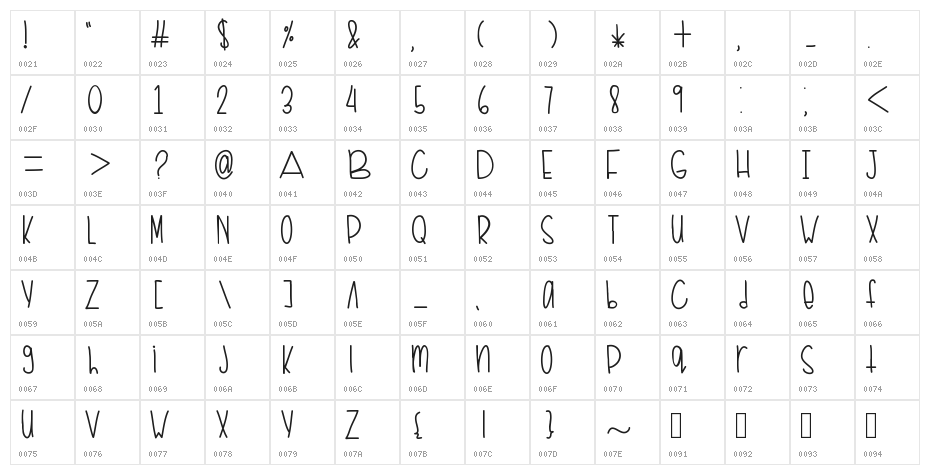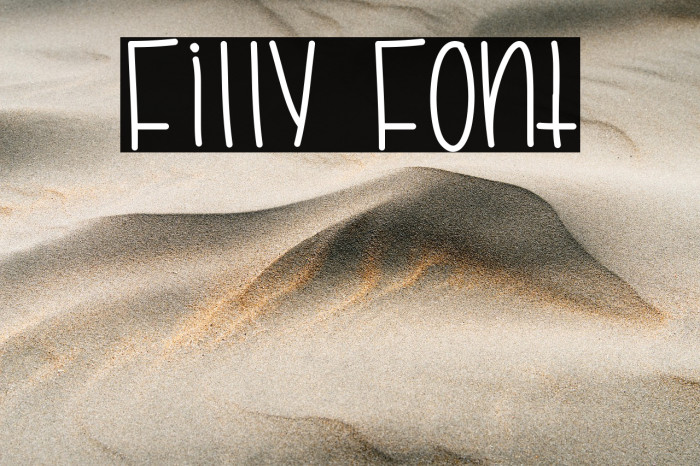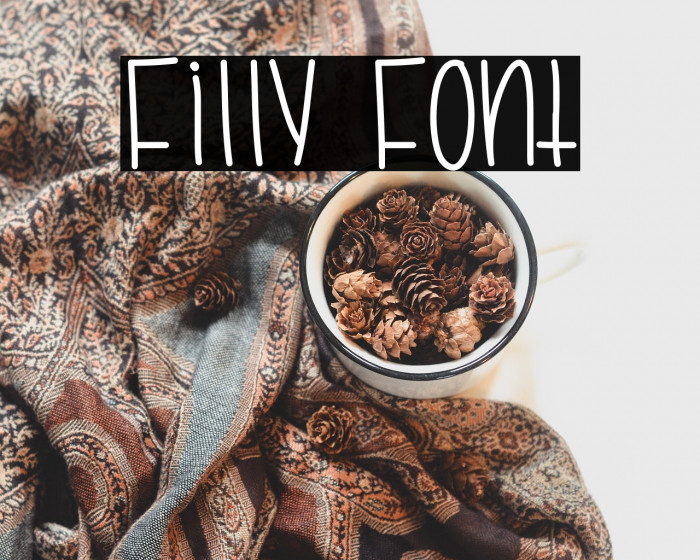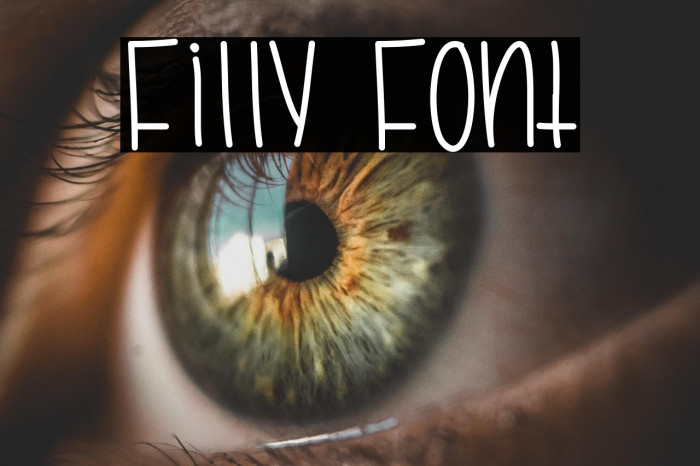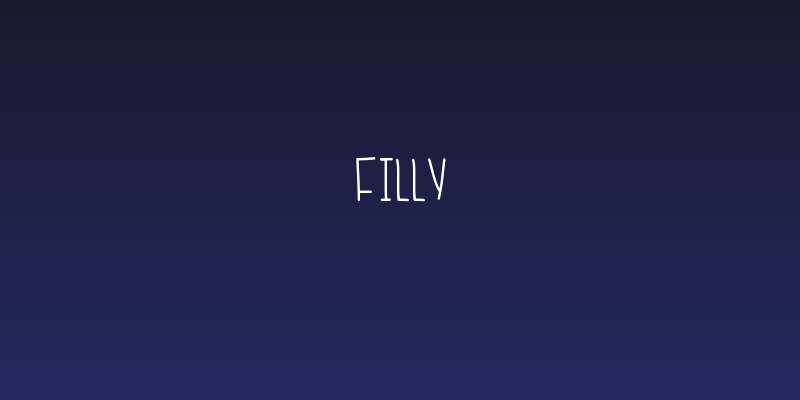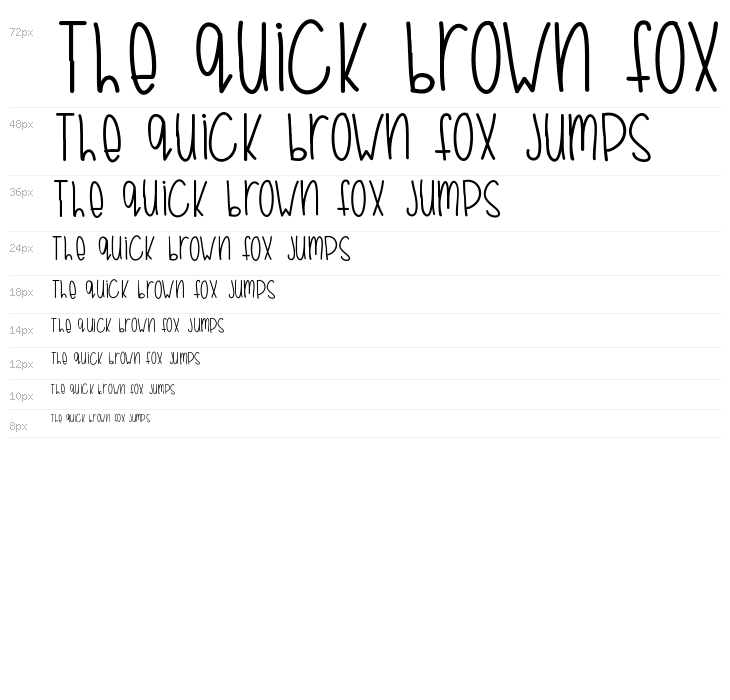
Filly Font
Filly Description
This font features a playful and casual handwritten style, characterized by its tall, narrow letters and slightly irregular strokes. The uppercase and lowercase letters maintain a consistent height, giving it a uniform appearance. The numbers and special characters follow the same whimsical style, making it suitable for informal and creative projects. The strokes are consistent in width, providing a clean and approachable look. This font exudes a friendly and inviting vibe, perfect for projects that require a personal touch.
| Width | Condensed |
| Overall Style | Casual, Playful |
| Use Case | Headlines, Informal text, Creative projects |
| Proposed Projects | Ideal for greeting cards, children's books, casual invitations, and playful branding. |